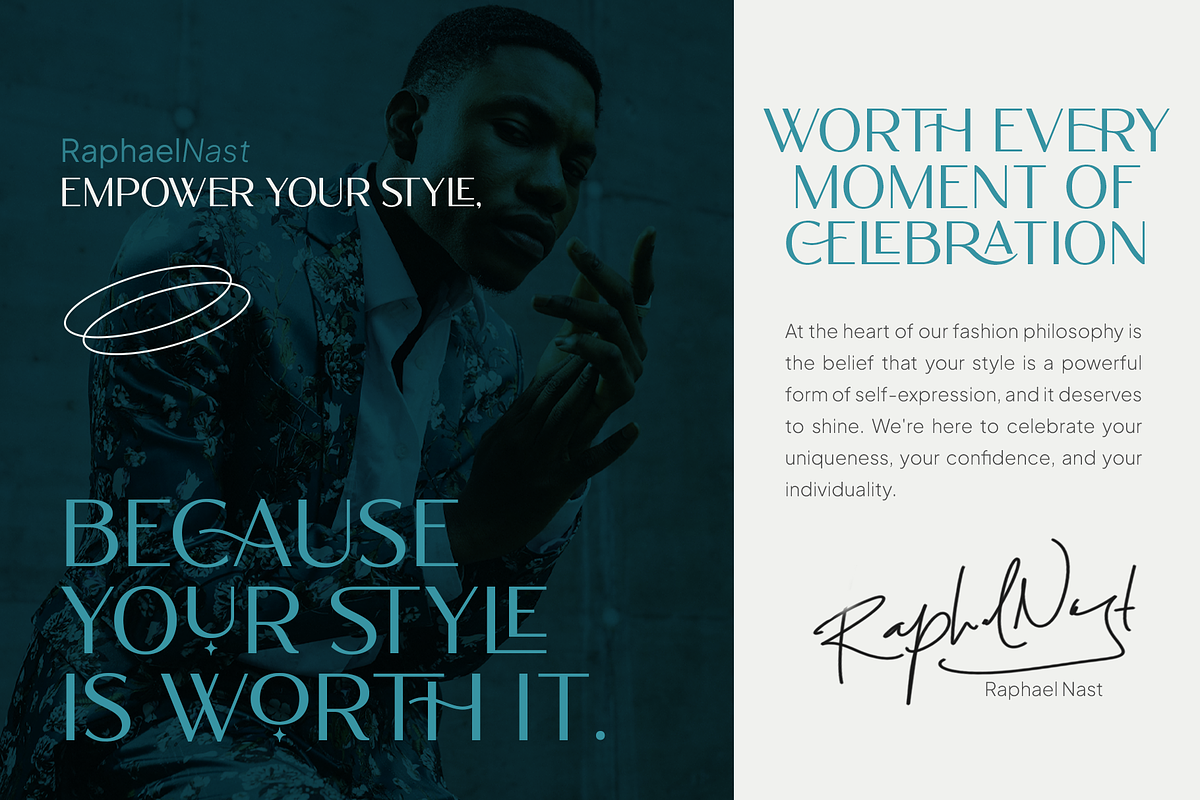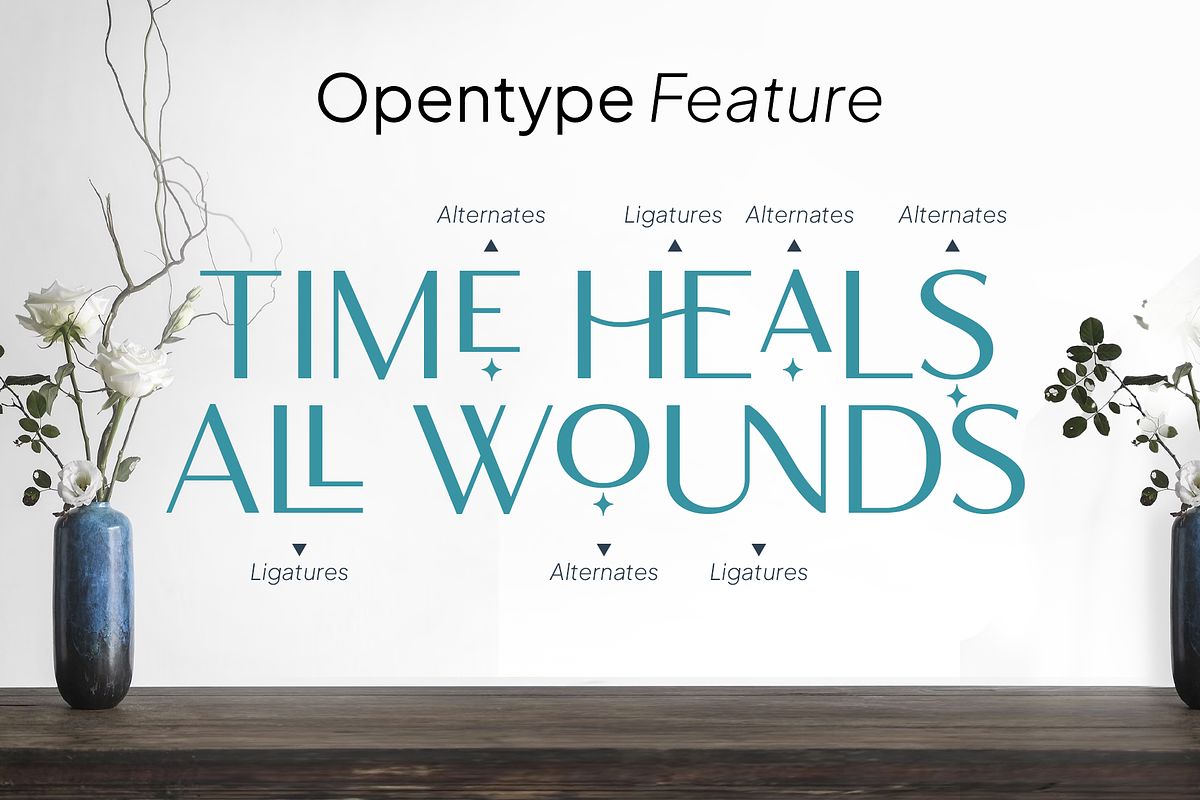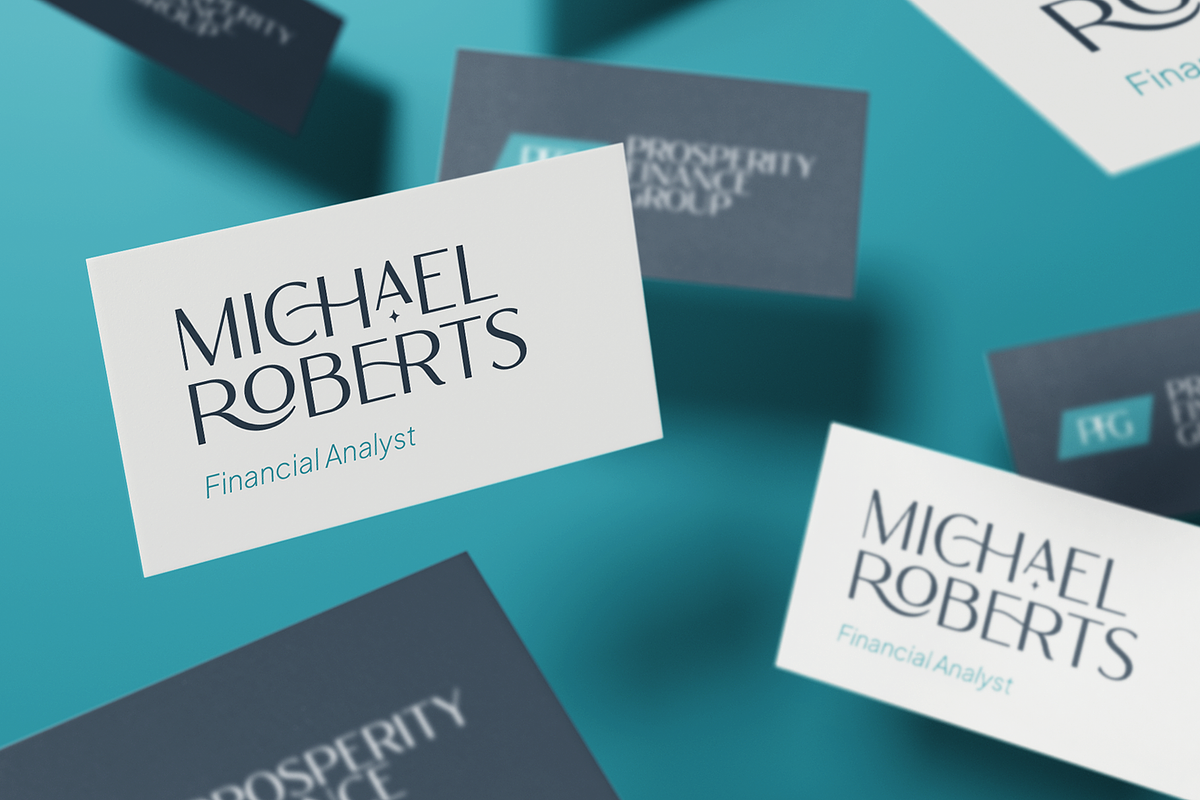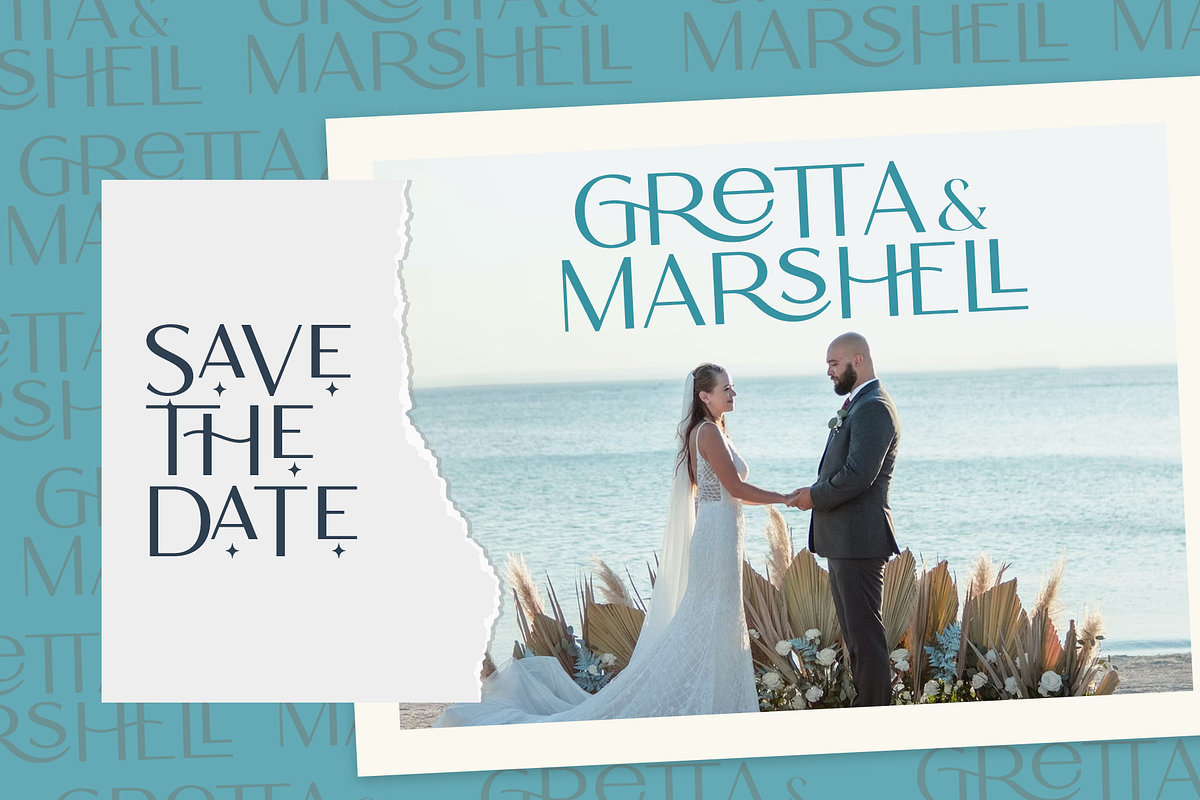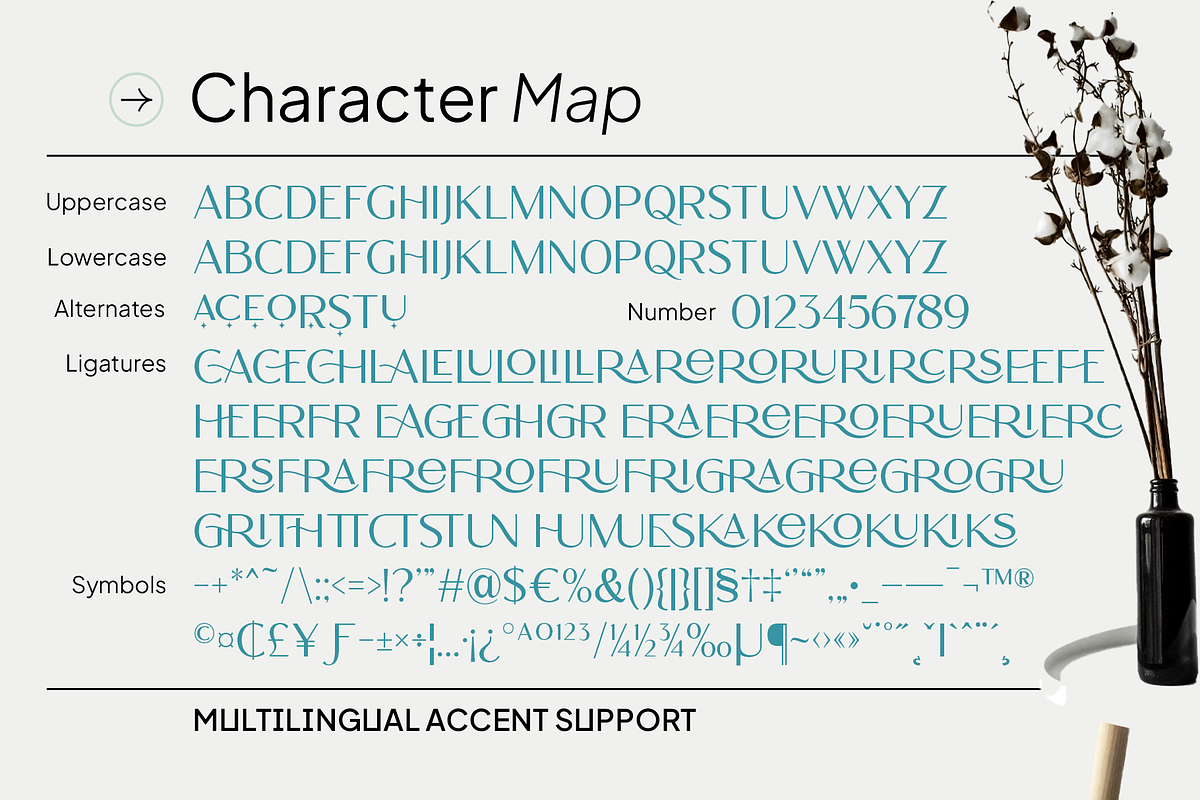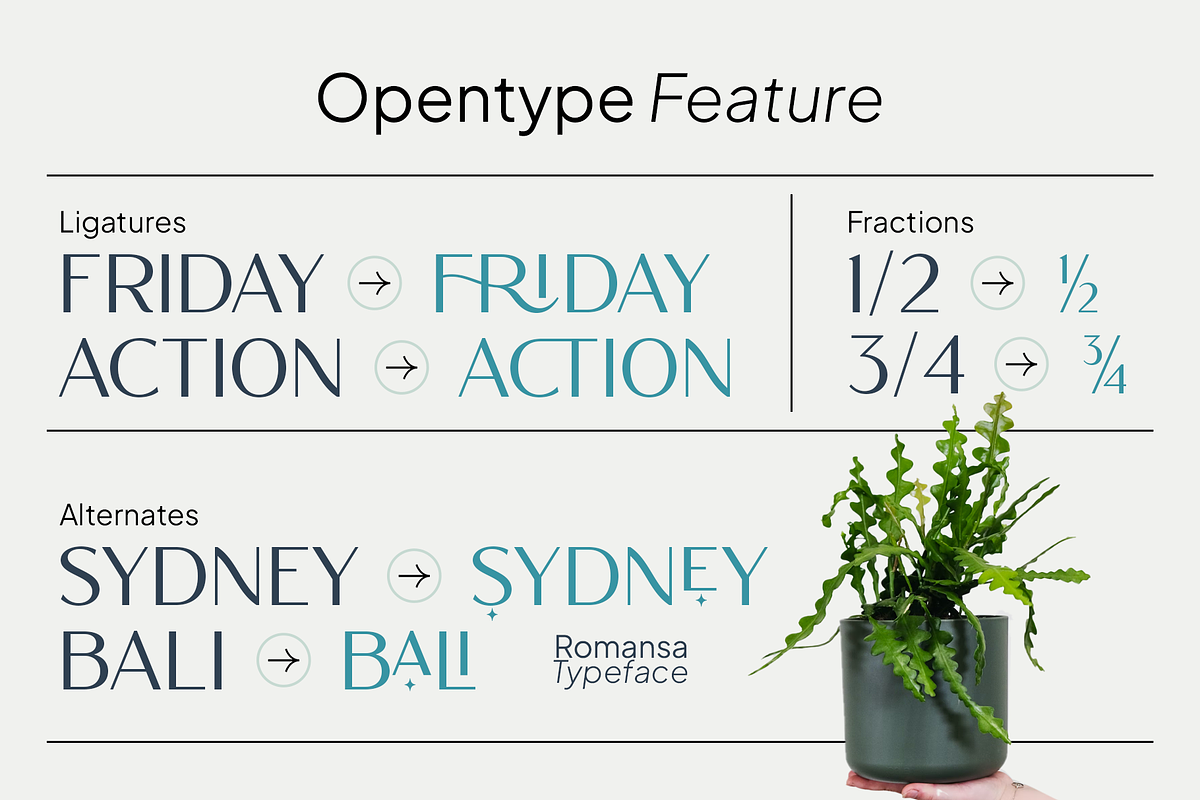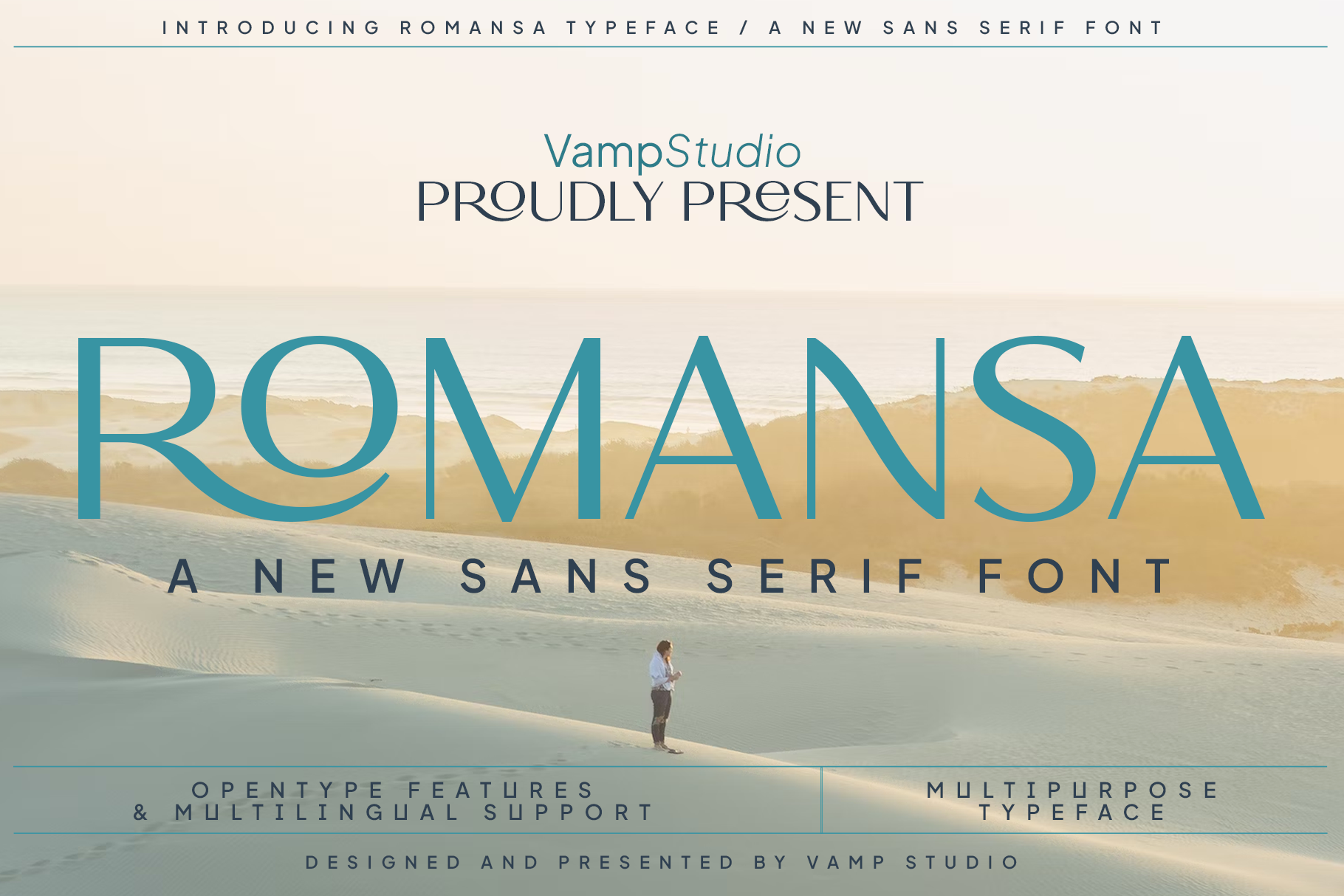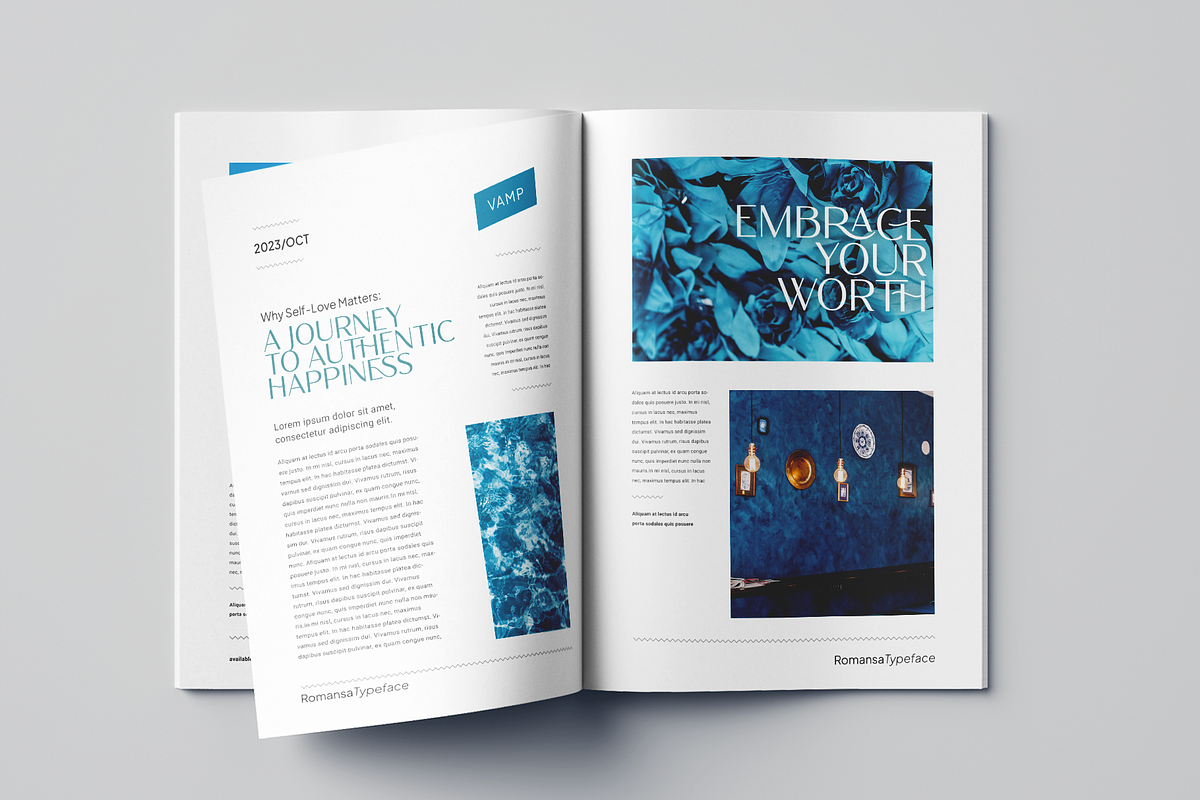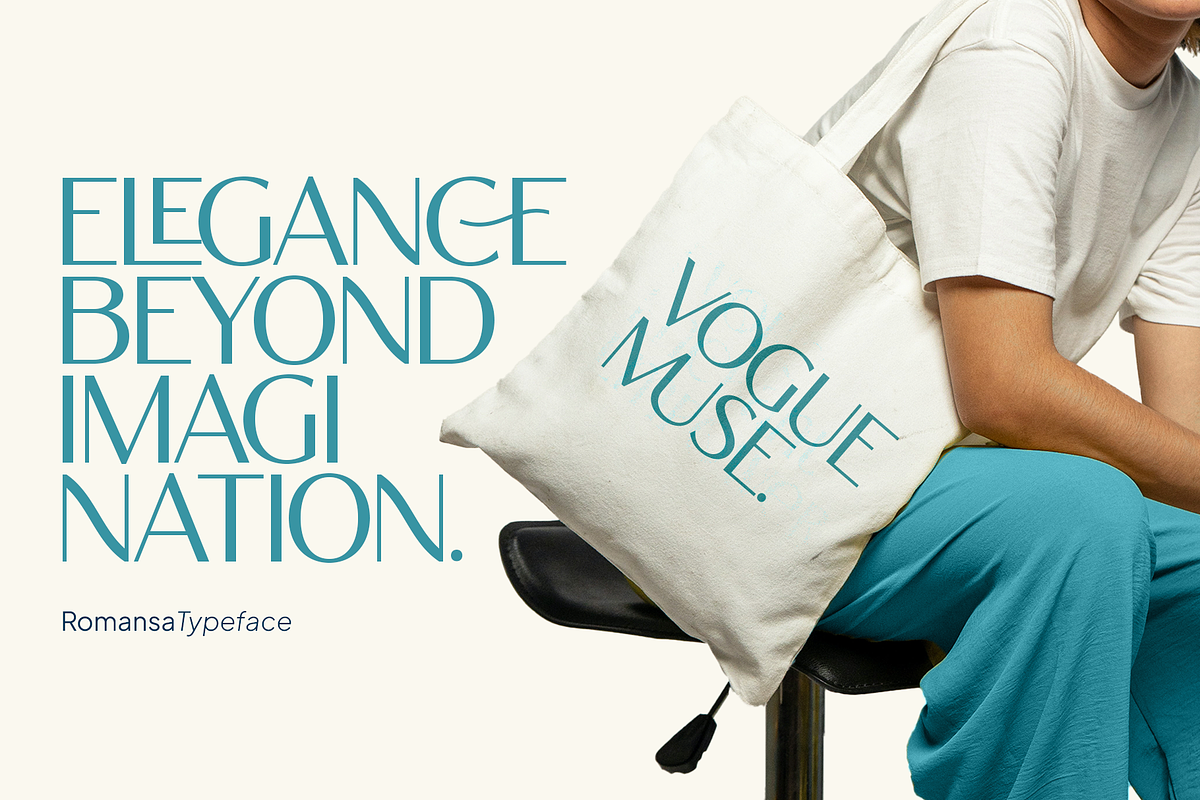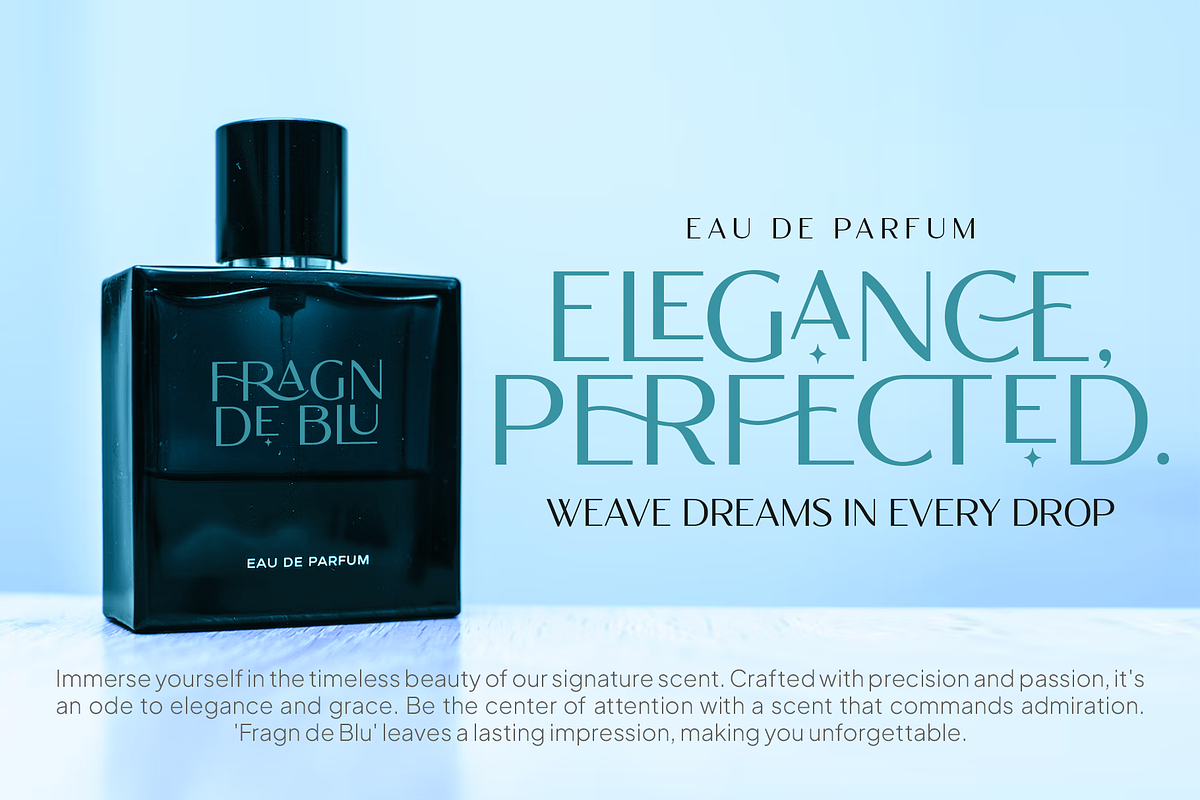
Romansa New Stylish Sans Serif Font
Introducing "Romansa" – Where Clean Simplicity Meets Modern Sophistication in Sans Serif Typography!
Get ready to elevate your designs with "Romansa," a sleek and versatile sans serif font designed to bring a touch of modern elegance to your projects.
Immerse yourself in the clean lines and balanced proportions of "Romansa." This font embodies simplicity and sophistication, making it the perfect choice for a wide range of design applications.
Romansa is perfect for branding projects, logo, wedding designs, social media posts, advertisements, product packaging, product designs, label, photography, watermark, invitation, stationery and any projects that need handwriting taste.
- Fonts include multilingual support for; Afrikaans, Albanian, Czech, Danish, Dutch, English, Estonian, -Finnish, French, German, Hungarian, Italian, Latvian, Lithuanian, Norwegian, Polish, Portuguese, Slovak, Slovenian, Spanish, Swedish.